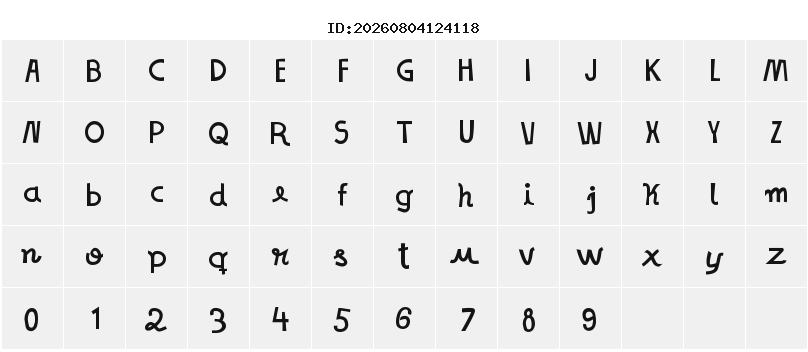
• Font Name: No Name Sans
• Full Font Name: No Name Sans
• Designer: © Galdino Otten. 2013. All Rights Reserved
• Manufacturer: Galdino Otten
About No Name Sans.ttf
No Name Sans.ttf is a modern, elegant sans-serif font designed for ultimate readability and visual harmony. Perfect for branding, headlines, web design, and print materials.